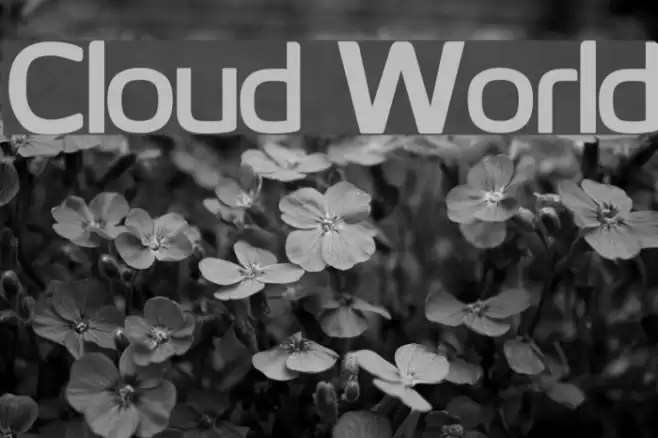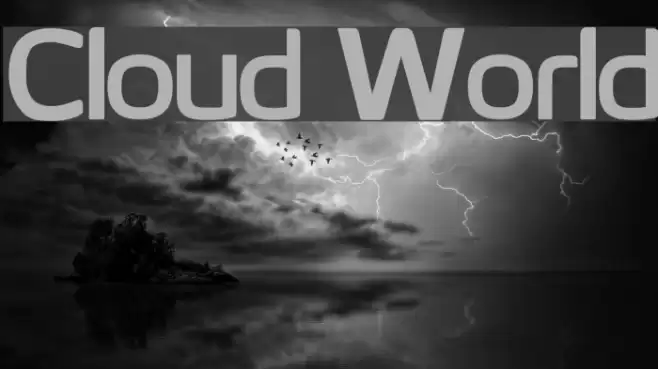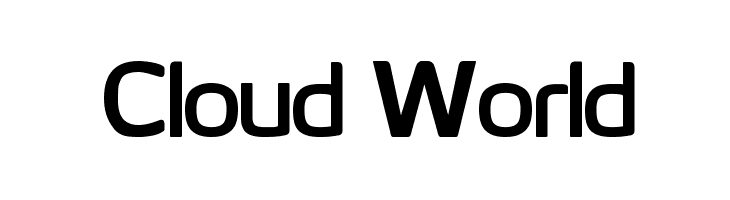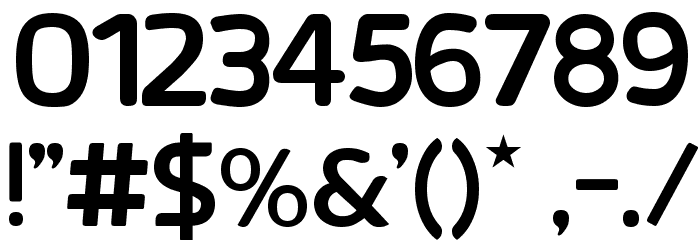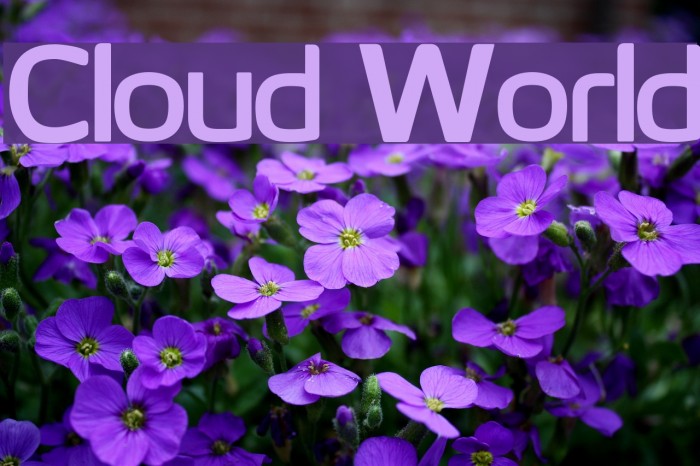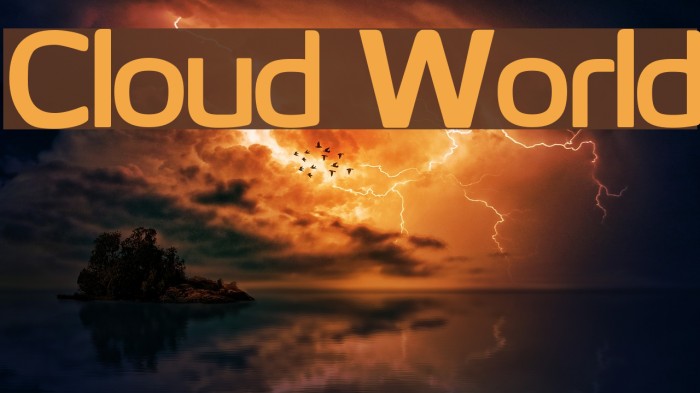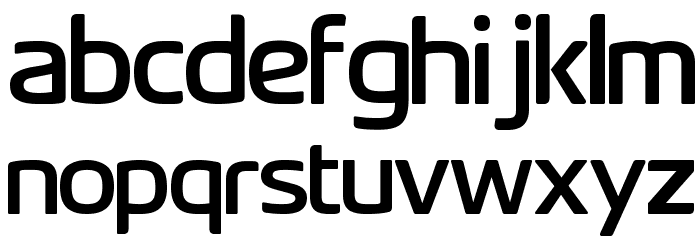
Cloud World Font
Cloud World Description
This font features a clean and modern sans-serif style with smooth, rounded edges that give it a friendly and approachable appearance. The characters are evenly spaced, contributing to excellent readability. The uppercase letters are bold and assertive, while the lowercase letters maintain a consistent flow with slightly softer curves. The numerals are clear and distinct, making them suitable for both digital and print applications. Special characters are well-integrated, maintaining the overall aesthetic of the font. Its versatility makes it ideal for a wide range of design projects.
A modern sans-serif font with rounded edges and excellent readability from Uncategorized fonts.